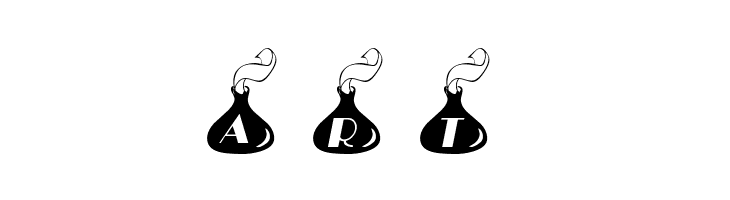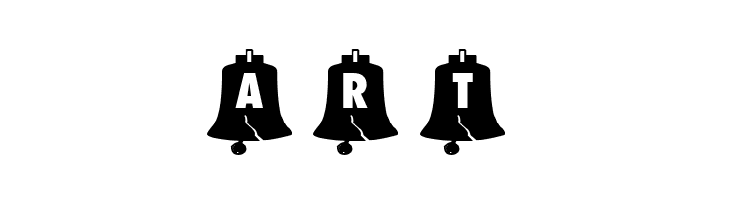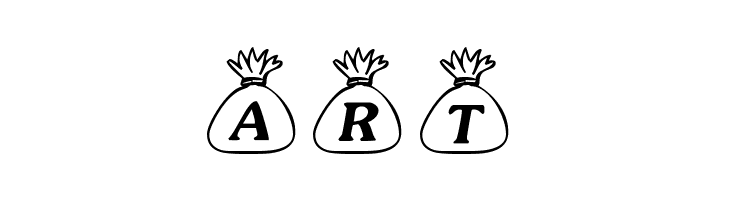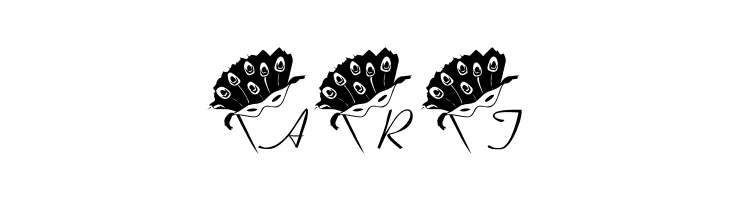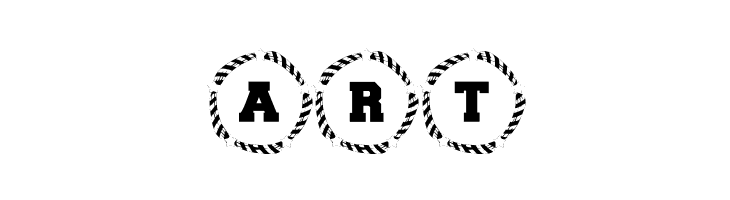
A playful font with characters inside candy wrapper shapes, offering a whimsical and fun design.
A decorative font with characters encased in bell silhouettes, ideal for thematic designs.
A playful font with characters enclosed in stylized loot bags, perfect for whimsical designs.
An elegant script font with a decorative mask motif above each character.
Bold uppercase font with decorative circular borders.